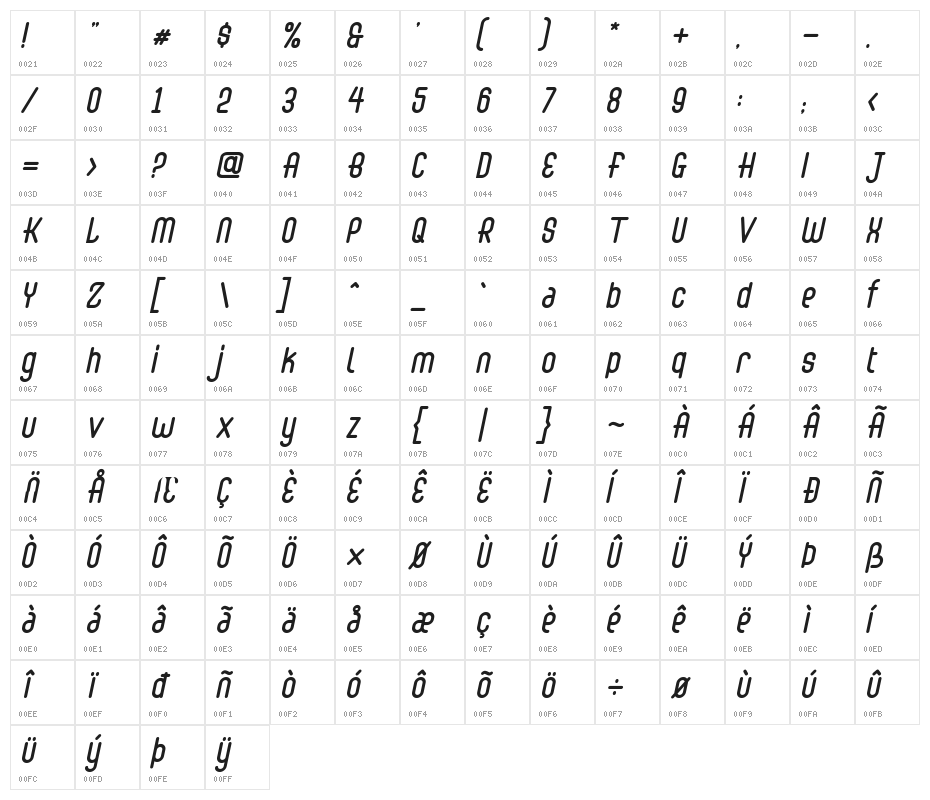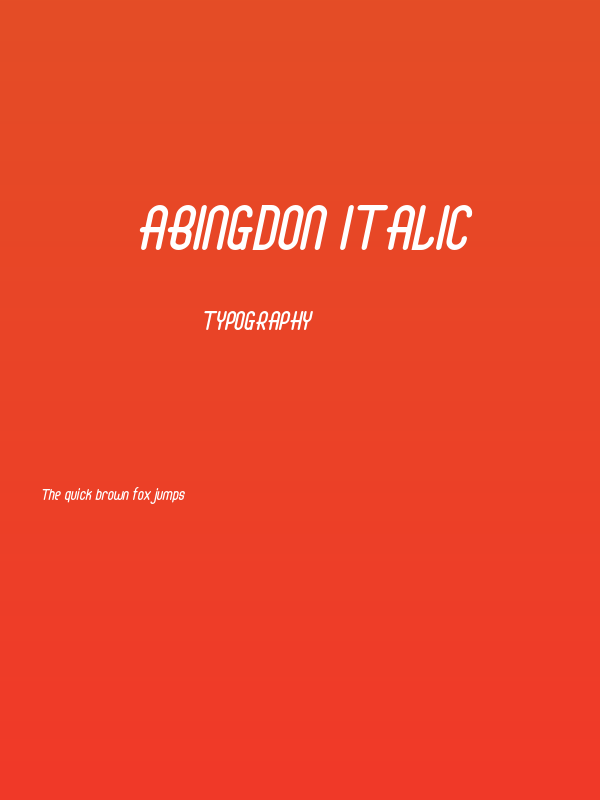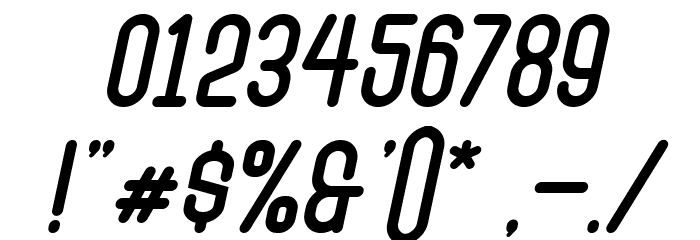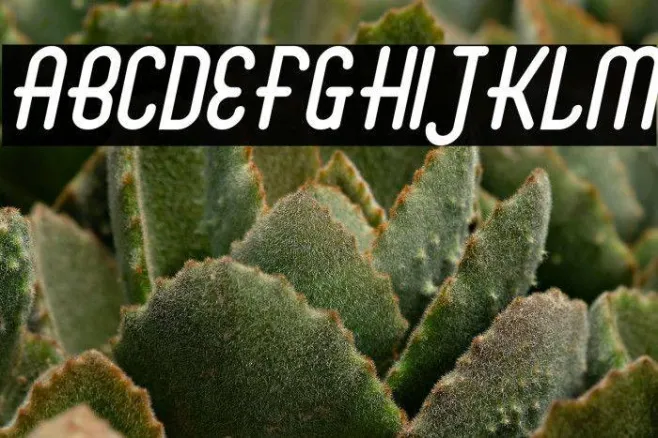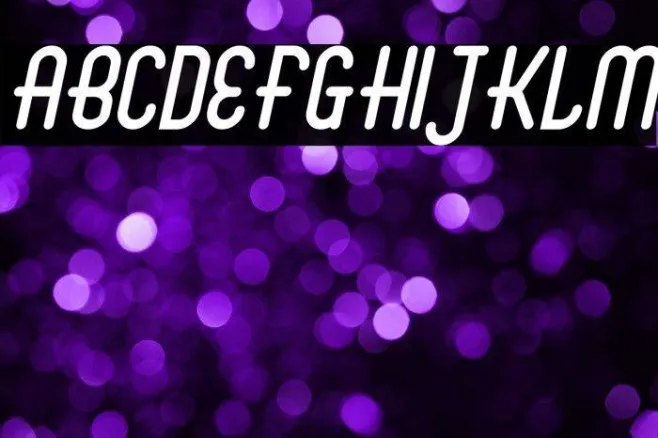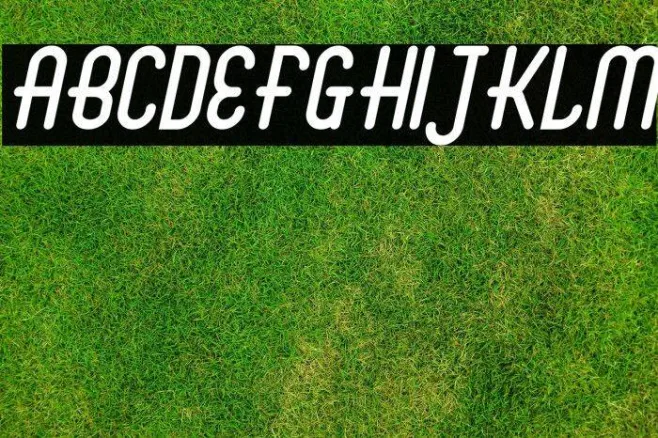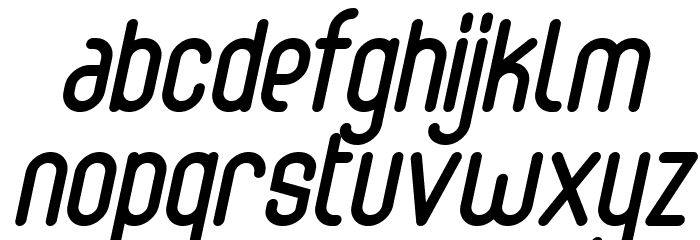
Abingdon Italic Font
Abingdon Italic Description
This font features a modern and sleek design with a distinct italic slant, giving it a dynamic and forward-moving appearance. The characters are rounded and smooth, with consistent stroke thickness that provides a clean and polished look. The uppercase and lowercase letters maintain a uniform style, while the numerals are clear and easily distinguishable. Special characters are well-integrated, maintaining the overall aesthetic. The font's design is both contemporary and versatile, making it suitable for a variety of applications.
| Use Case | Headlines, Logos, Digital Media |
| Proposed Projects | Ideal for branding, advertising, and digital media projects where a modern and dynamic look is desired. |